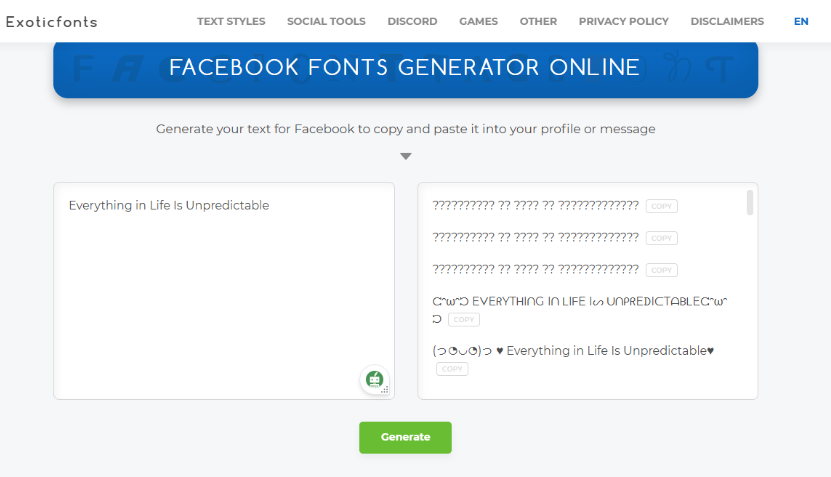
Ever scrolled through your Facebook feed and felt like everything looks the same? You’re not alone. With so many people and businesses posting daily, it’s easy for your content to get lost in the crowd. But what if you could make your posts pop with just a few clicks? That’s where a Facebook font generator comes in handy.
Using a Facebook font generator isn’t just about making your text look pretty—it’s about standing out, expressing yourself, and even growing your online presence. Whether you’re sharing a personal update, promoting your small business, or just having fun, the right font can make a big difference. In this article, we’ll explore why these tools are so useful and introduce you to some of the best options out there. Plus, we’ll show you how to take your Facebook content even further with CapCut’s desktop video editor.
Why Use a Facebook Font Generator?
Let’s be real: nobody wants their posts to be boring. A unique font can catch someone’s eye as they scroll, making them more likely to stop and read what you’ve shared. But there’s more to it than just looks. Here are some reasons why using an FB font generator is a smart move:
- Grab Attention in a Busy Feed: With thousands of posts flooding Facebook every second, ordinary text just blends in. A cool, custom font helps your post stand out and encourages people to engage.
- Improve Readability: Some fonts are not only stylish but also easier to read. This is super helpful for longer posts where clarity matters.
- Set the Right Tone: The font you choose can say a lot about your message. A playful font can make your post feel fun, while a sleek, modern one can make it look more professional.
- Build Brand Consistency: If you’re using Facebook for business, sticking to a specific font style helps people recognize your content instantly. It’s a simple way to strengthen your brand.
- Boost Engagement: Let’s face it—people are more likely to like, comment, and share posts that look good. A visually appealing font can increase your reach and interaction.
Using a tool like an FB font generator is an easy way to make your posts more engaging without needing any design skills. It’s all about making your content as inviting as possible.
Top Facebook Font Generators to Try
Now that you know why these tools are useful, let’s dive into some of the best Facebook font generators available. Each one has its own strengths, so you can pick the one that fits your style and needs.
LingoJam: Free and User-Friendly
LingoJam is a popular choice because it’s simple, free, and works right in your browser—no downloads needed. Just type or paste your text, and it instantly generates multiple font styles. You can even use it to create retro-looking text for throwback photos.
What’s great about LingoJam:
- Offers bold and italic options.
What could be better:
- Occasionally has minor display glitches.
- Some fonts may not appear correctly on all devices.
Fsymbols: Perfect for Emoticons and Symbols
If you love adding fun symbols and emoticons to your posts, Fsymbols is for you. This tool lets you copy and paste special characters into your Facebook bio, posts, comments, and more. It even has a “Stylish Facebook Name Font Generator” to help you personalize your profile name.
What’s great about Fsymbols:
- Huge variety of symbols and emoticons.
- Easy copy-paste function.
- Simple interface.
What could be better:
- Limited customization beyond selecting fonts.
- Might feel overwhelming for beginners.
Fancy Fonts: Loads of Options
With over 80 free fonts to choose from, Fancy Fonts is perfect for those who want plenty of variety. It also lets you preview how your text will look before you decide, which is super helpful. You can even customize background colors and font sizes for a more personalized touch.
What’s great about Fancy Fonts:
- Mobile app available for on-the-go use.
- Preview feature helps you choose the best font.
- Lots of creative options.
What could be better:
- Some premium fonts require in-app purchases.
- The app can be tricky to navigate at first.
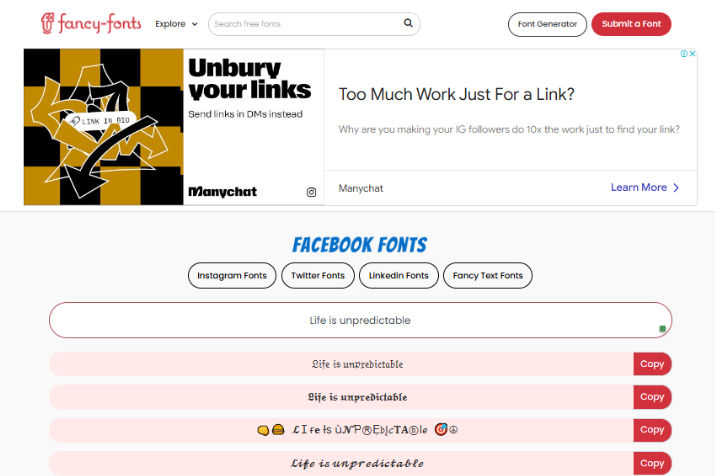
Fbfonts: Great for Profile Customization
Fbfonts specializes in helping you customize your Facebook profile name and bio with over 108 stylish fonts. While you can’t save the fonts as images directly, you can take a screenshot and use AI tools to keep the quality high. It’s completely free and very easy to use.
What’s great about Fbfonts:
- Huge font collection.
- No cost involved.
- Simple copy-paste functionality.
What could be better:
- No option to adjust font size.
- Lacks advanced features like special effects.
Exoticfonts: Ideal for Android Users
Designed specifically for Android, Exoticfonts offers a smooth experience for generating fun and quirky fonts. With just one tap, you can access styles like Creepy, Weird, Aesthetic, and more. It’s also compatible with other social media platforms, not just Facebook.
Can I use a Facebook font generator on my phone?
Which font generator is the best?
It depends on what you need. Fancy Fonts and Exoticfonts are great for variety, while Fsymbols is perfect for symbols and emoticons.
How do I change my Facebook text font?
Just paste your text into a generator like LingoJam, choose a style, and copy-paste the result into your Facebook post or bio.